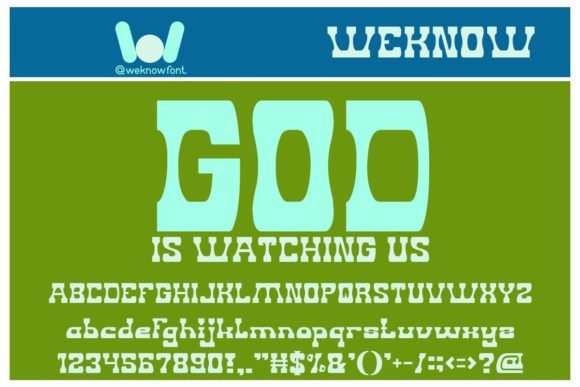
Introduction to God is Watching Us Font
God is Watching Us is a bold and authentic display font.
The font is suitable for any branding project like logo, t-shirt printing, sporting design, and many more It will look outstanding in a wide range of contexts.
God is Watching Us Font offers exceptional quality and versatility, making it a valuable addition to your design toolkit. Whether you’re creating for personal projects or commercial use, God is Watching Us Font delivers professional results.